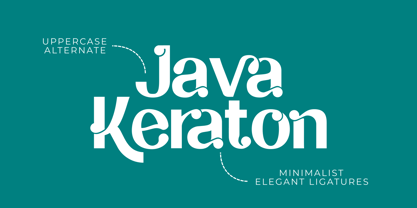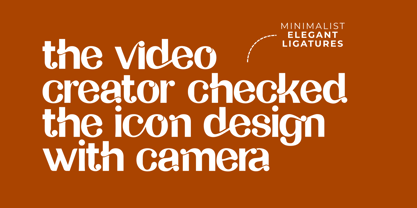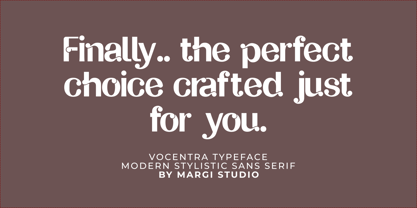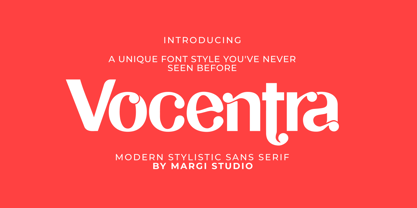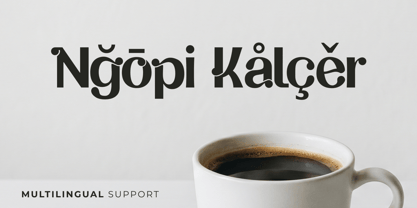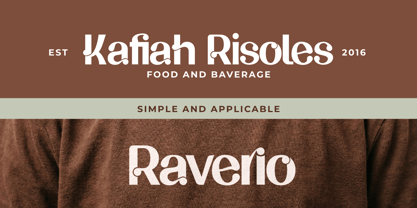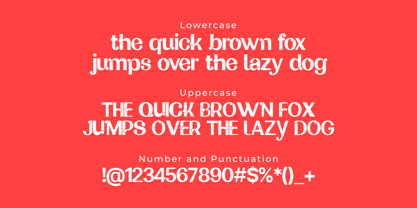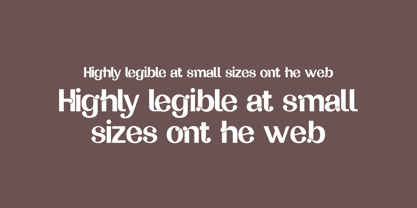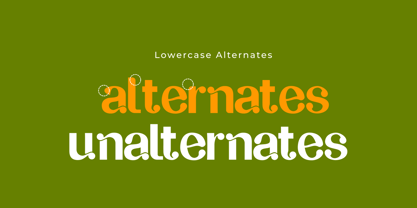
Vocentra
La familia tipográfica Vocentra fue diseñada por Muhammad Amal y publicada por Margi Studio. Vocentra contiene 1 estilos. Más información sobre esta familia
Introducing Vocentra – A Bold Retro Serif with Modern Elegance
Step into a world where vintage charm meets contemporary design. Vocentra is a striking, high-contrast display serif font designed to command attention. With its unique swashes, playful curves, and bold structural lines, this typeface brings an unmistakable personality to any creative project.
Whether you are designing an eye-catching logo, premium product packaging, trendy editorial layouts, or powerful branding materials, Vocentra delivers a perfect balance of nostalgic groovy vibes and sleek modern sophistication.
🌟 Key Features
• Rich Alternate Characters: Inject unique flair into your typography. Vocentra comes packed with beautiful stylistic alternates, allowing you to transform standard text into custom lettering with just a few clicks.
• Elegant Ligatures: Create seamless, fluid connections between letters. The carefully crafted ligatures ensure your headlines and logos look custom-made, well-balanced, and highly professional.
• Extensive Multilingual Support: Ready for the global stage. This font includes a comprehensive set of characters that support a wide range of Latin-based languages, ensuring your message connects with international audiences smoothly.
🎨 Perfect For:
• Branding & Logo Design
• Premium Product Packaging
• Editorial Headlines & Magazine Layouts
• Social Media Graphics & Marketing Posters
• Apparel Design & Merchandise
Bring your next design project to life with a typeface that is bold, expressive, and undeniably memorable.